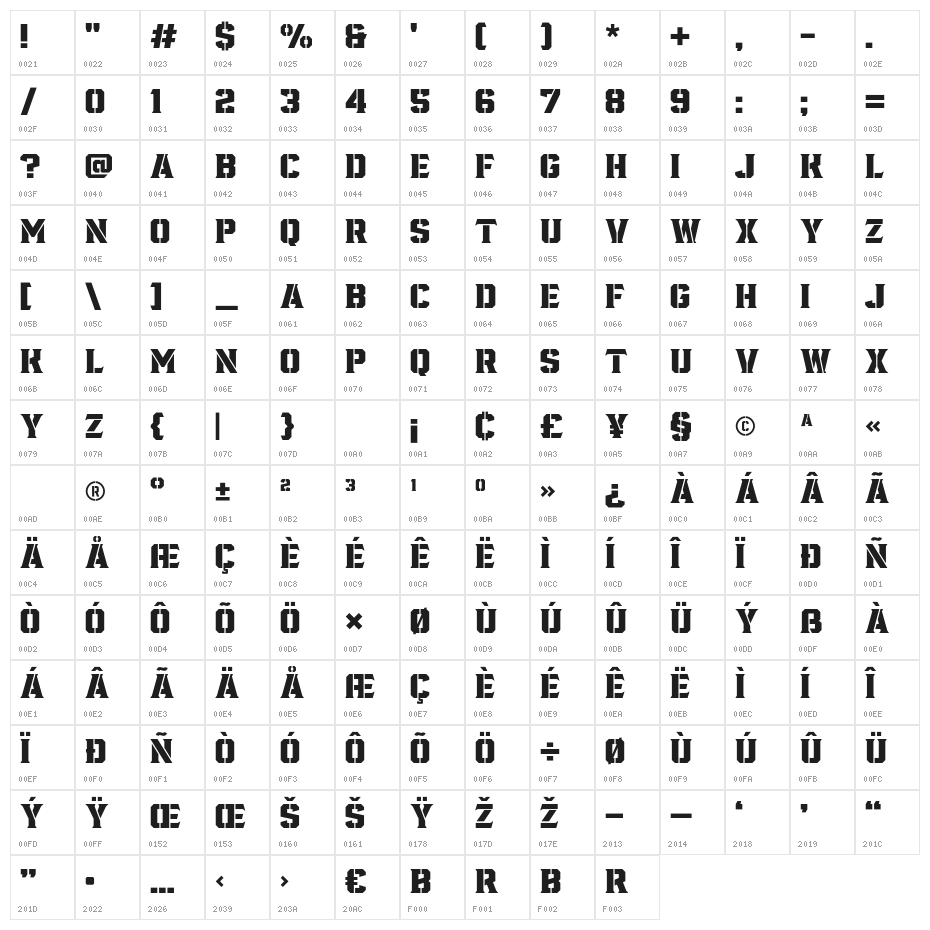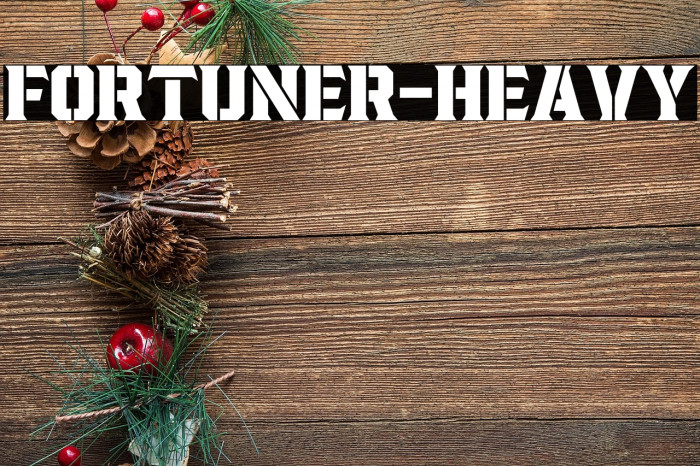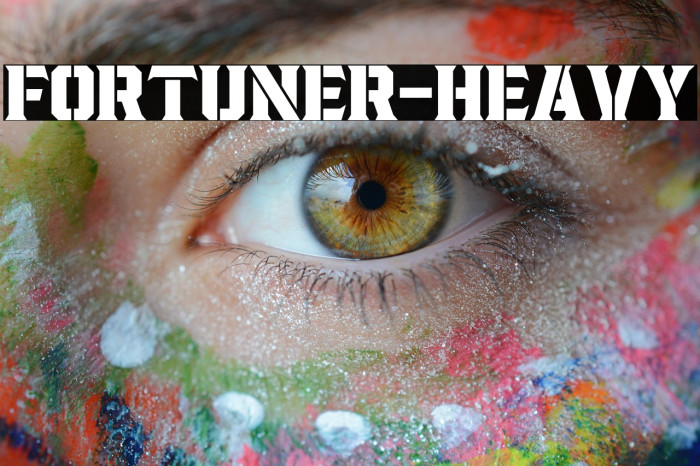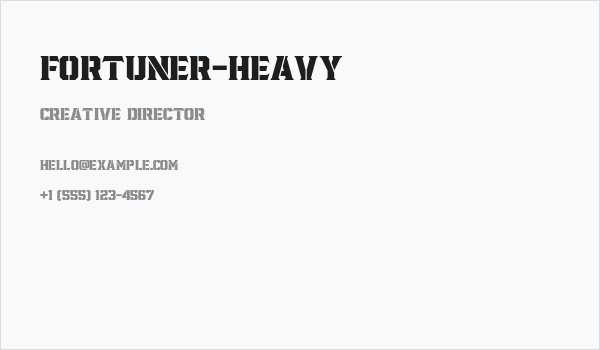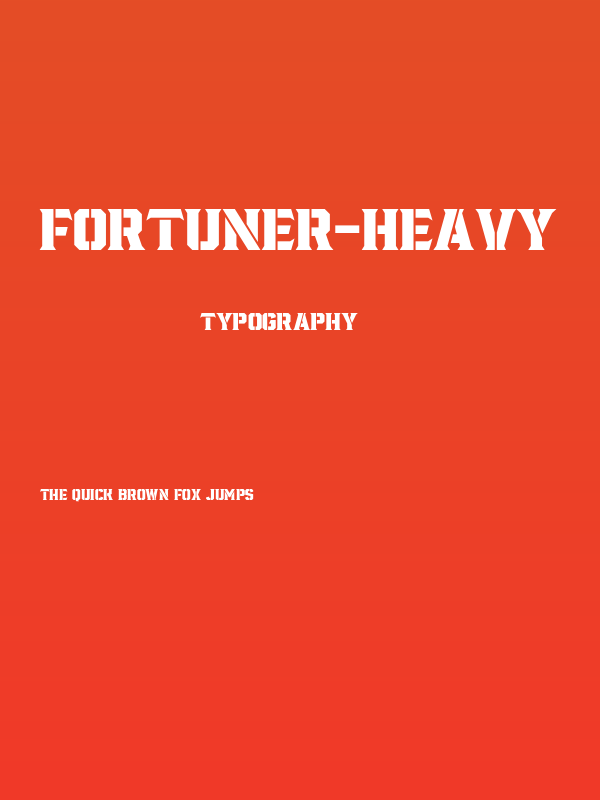
Fortuner-Heavy Font
Fortuner-Heavy Description
This font features a bold and impactful design with strong geometric shapes and sharp angles. The characters are constructed with a heavy weight, giving them a commanding presence. The style is reminiscent of industrial or military aesthetics, with a modern twist. The uppercase and lowercase letters maintain a consistent width, contributing to a uniform appearance. The numerals and special characters are equally robust, ensuring readability and emphasis. The font's distinct style makes it suitable for attention-grabbing headlines and logos.
| Overall Style | Modern, Industrial |
| Proposed Projects | Ideal for branding, posters, and signage where a strong, impactful presence is needed. |